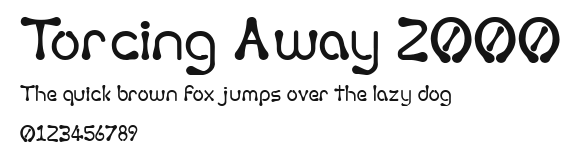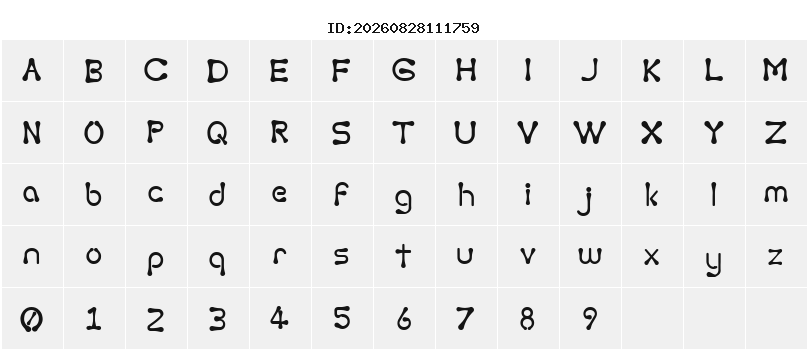
Torcing Away 2000 Preview
• Font Name: Torcing Away 2000
• Full Font Name: Torcing Away 2000
About Torcing Away 2000.ttf
Torcing Away 2000.ttf is a modern, elegant sans-serif font designed for ultimate readability and visual harmony. Perfect for branding, headlines, web design, and print materials.